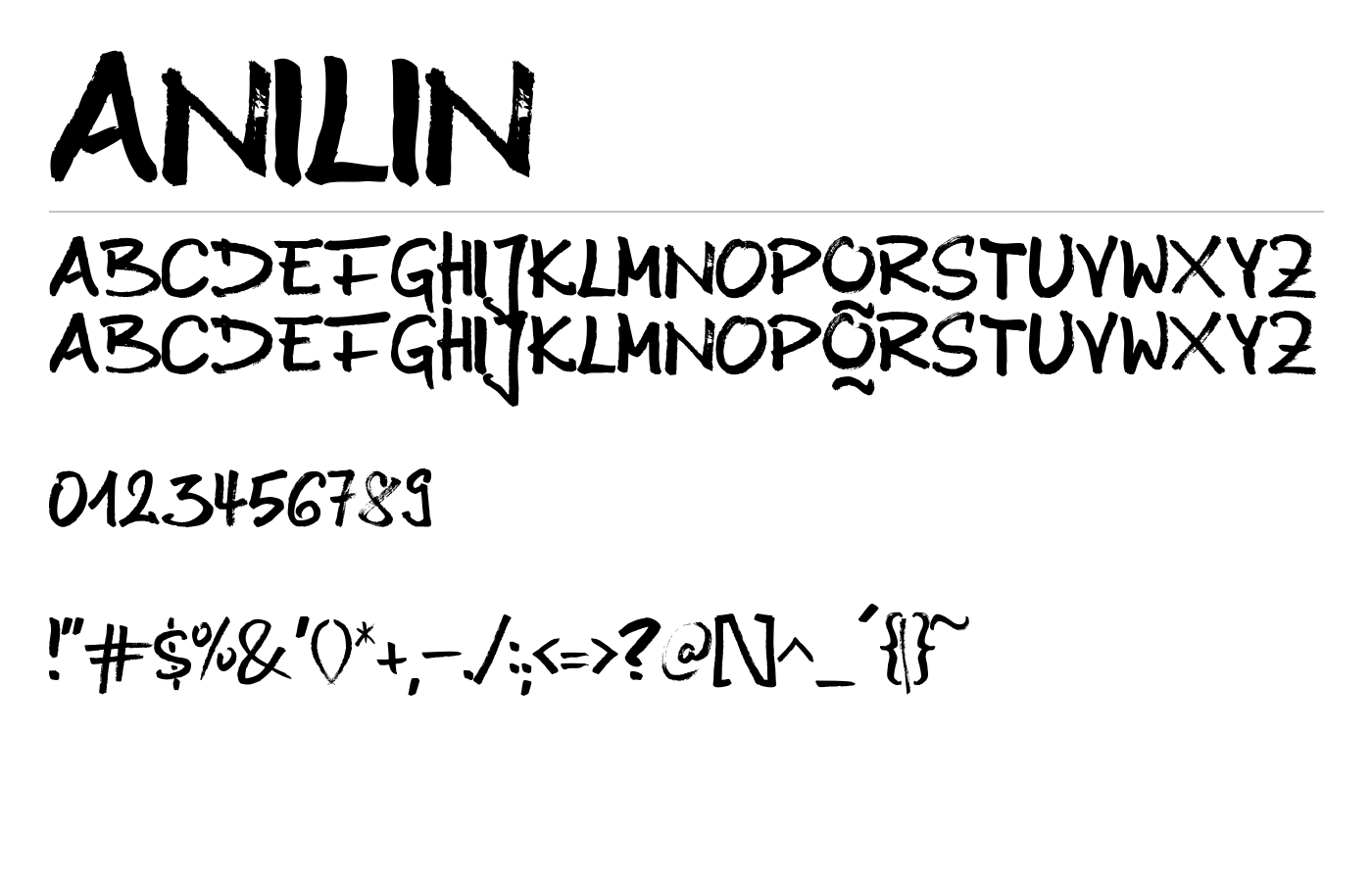
Anilin is a bold, expressive handwritten font with a rough, textured stroke that mimics brush painting. Its irregular, slightly condensed letterforms convey energy and a raw, artistic vibe, making it perfect for creative projects, posters, or branding that wants a dynamic, edgy feel. This font works well in attention-grabbing headlines and designs that seek a handcrafted, informal look.
Anilin Font